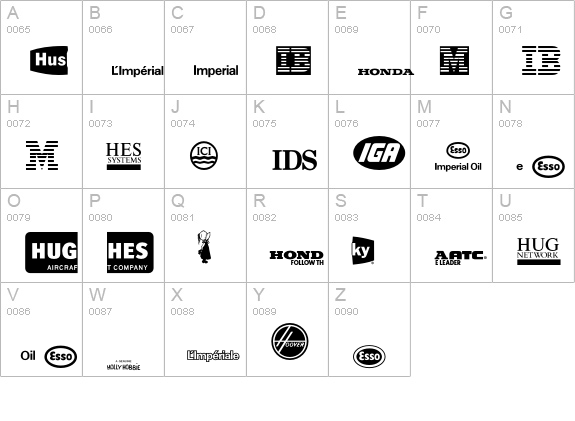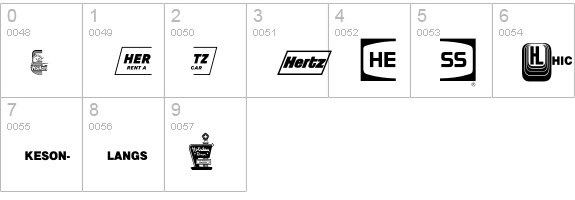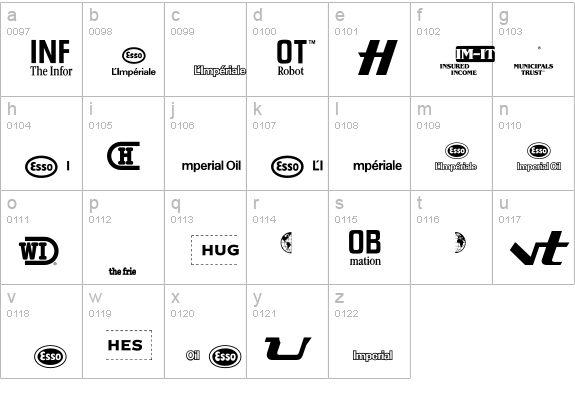
LogosCompanyP09 font is a modern and stylish typeface that exudes professionalism and sophistication. Its sleek lines and sharp edges make it perfect for creating eye-catching designs for logos, branding, and marketing materials. The versatility of LogosCompanyP09 font allows it to be used in a variety of design projects, from corporate to creative. What sets LogosCompanyP09 font apart is that it is not only visually appealing but also free to download at FontsMarket.com. This means that you can access this high-quality font without any cost, making it a valuable resource for designers and creatives looking to elevate their projects without breaking the bank. With its unique and distinctive look, LogosCompanyP09 font is sure to make a lasting impression on your audience. Download it for free today and add a touch of elegance to your designs.